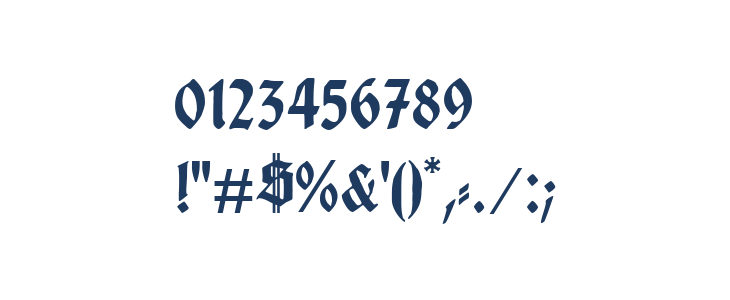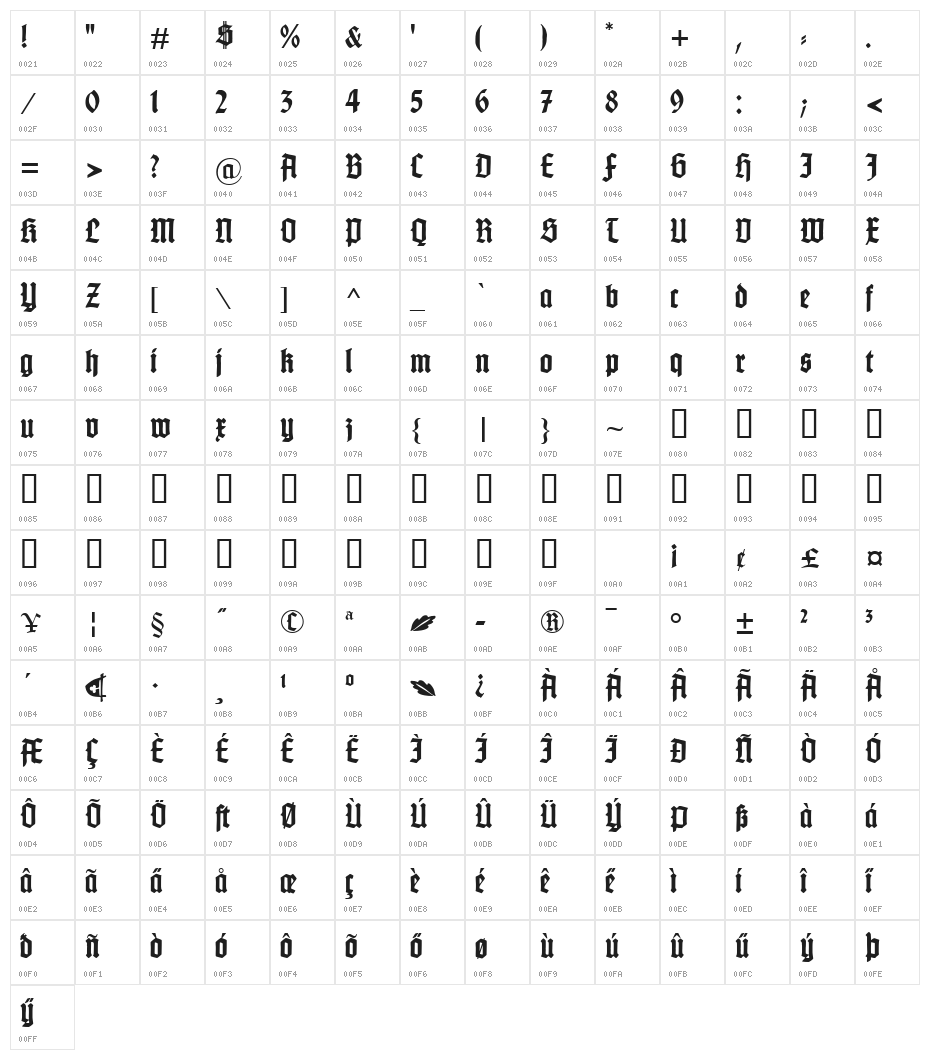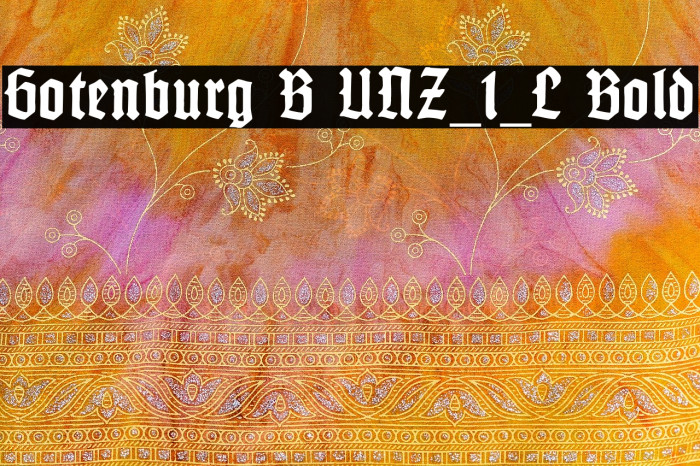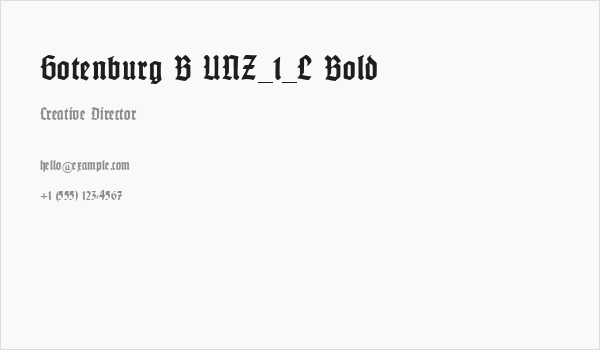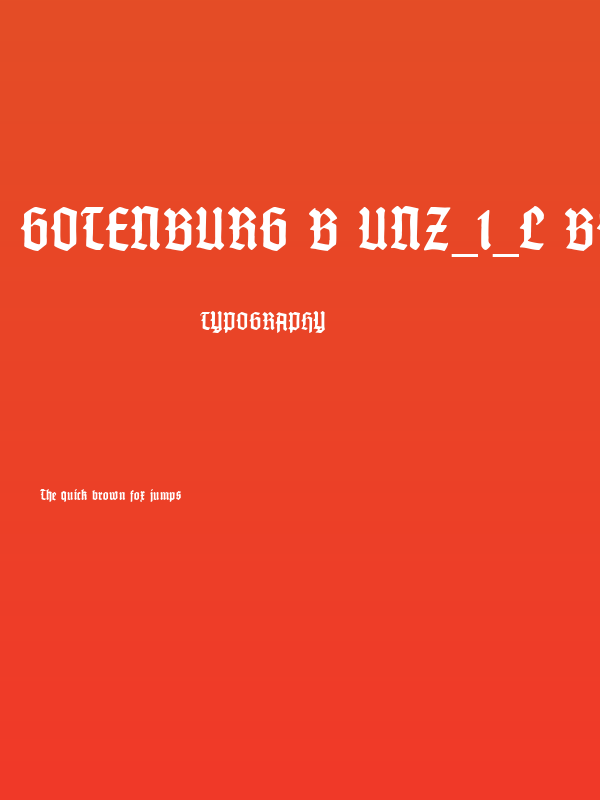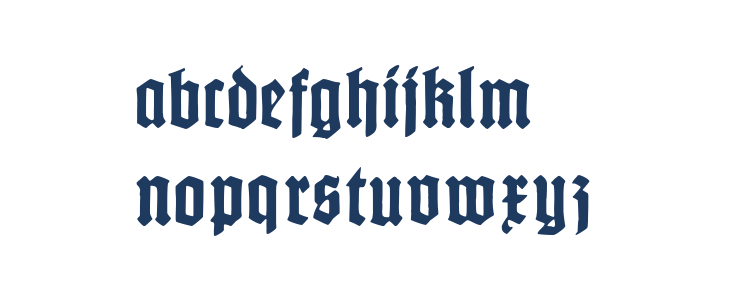
Gotenburg B UNZ_1_L Bold Font
Gotenburg B UNZ_1_L Bold Description
This font features a bold and dramatic blackletter style, reminiscent of traditional Gothic script. The characters are characterized by their sharp, angular lines and strong vertical emphasis, creating a sense of authority and historical depth. The uppercase letters are particularly striking, with intricate details and flourishes that enhance their visual impact. The lowercase letters maintain the same stylistic elements, ensuring consistency throughout the typeface. Numerals and special characters are designed to match the overall aesthetic, making this font suitable for a variety of applications where a classic and bold statement is desired.
| Use Case | Headlines, Logos, Decorative text |
| Proposed Projects | Ideal for projects that require a historical or medieval theme, such as book covers, posters, or branding for events and products with a vintage or classic appeal. |